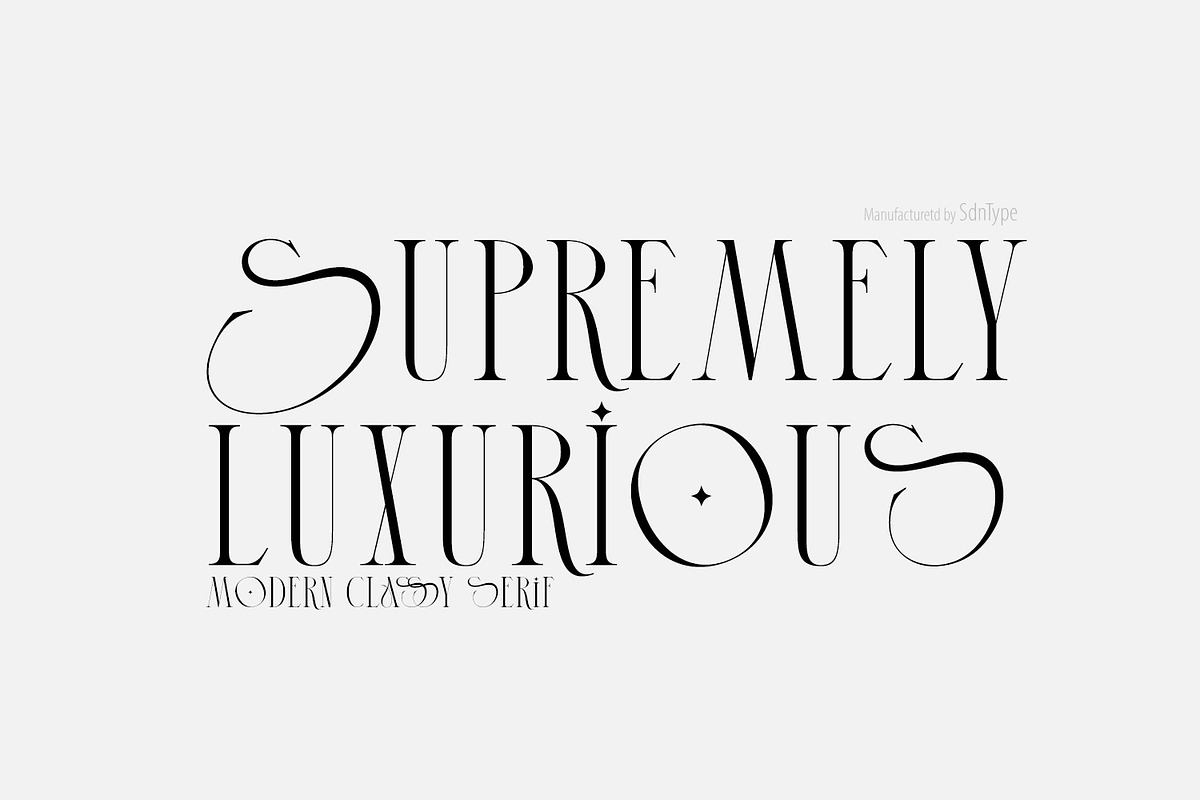
Supremely Luxurious Typeface Free Download is an elegant and delicate serif font that adds a touch of sophistication to various design projects. Ideal for branding, product packaging, invitations, quotes, t-shirts, labels, posters, and logos, this font enhances your creations with its refined aesthetics.
Designed by TypeClassHeroes, Supremely Luxurious offers a comprehensive set of features, including uppercase and lowercase letters, numbers, symbols, international glyphs, multilingual support, alternates, and ligatures. The font package includes OTF, TTF, WOFF, and WOFF2 file formats, ensuring compatibility across various platforms and applications.